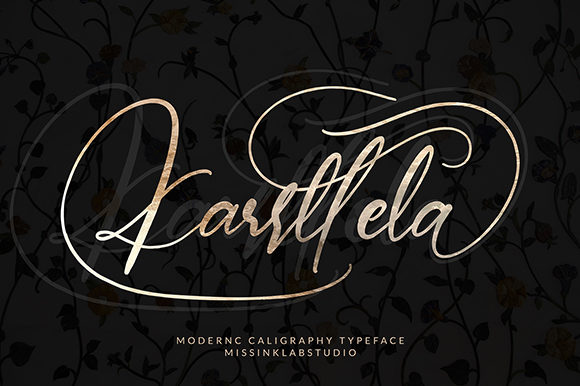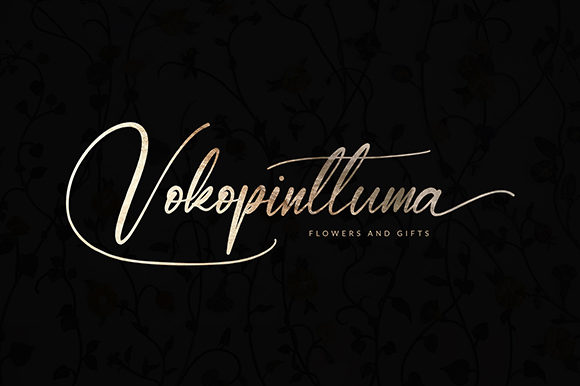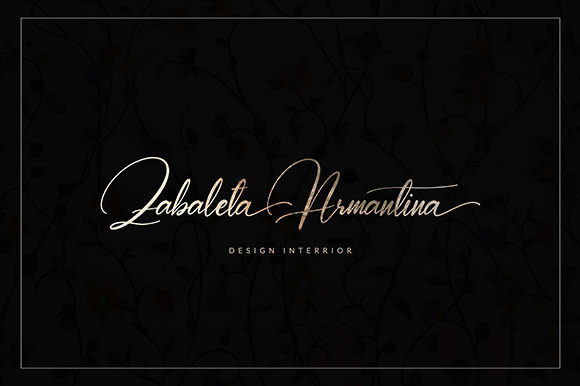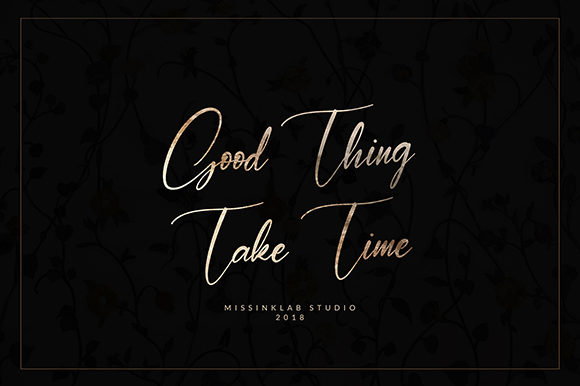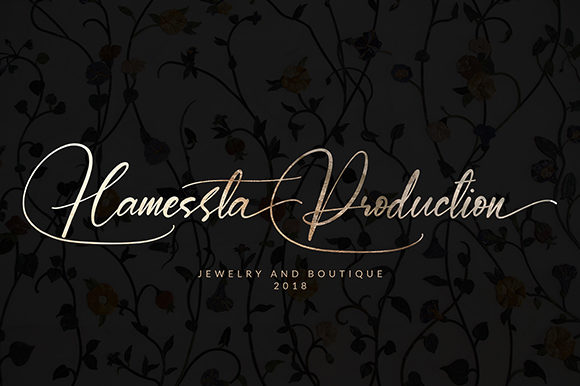
Karrttela Font
About Karrttela Font
Karrttela is a stunningly light and elegant handwritten font with beautiful swashes. Fall in love with its classic appeal.